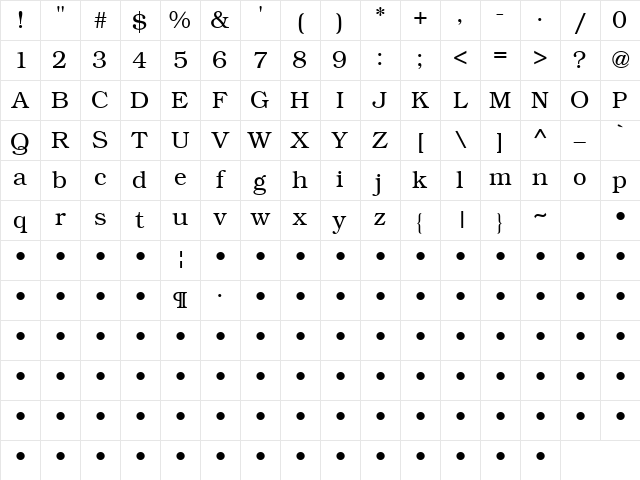
QTBookmann Regular
Design Context for QTBookmann
QTBookmann is a composed and adaptable typeface that performs quietly and consistently across a wide range of design contexts.
Pro Tip: Use QTBookmann in both headline and body roles to test its range before committing to a single application.